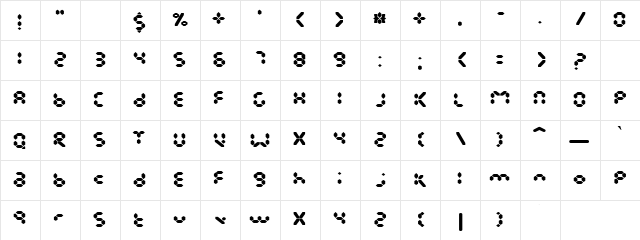
Digitaldouglas Regular
Design Context for Digitaldouglas Typeface
Digitaldouglas channels digital-age aesthetics through its sharp, structured letterforms — ideal for brands that want to signal innovation.
Pro Tip: Try Digitaldouglas with generous letter-spacing in UI labels and navigation — the geometric forms benefit from room to breathe.